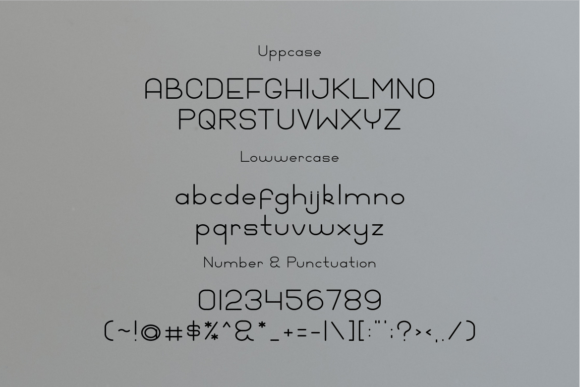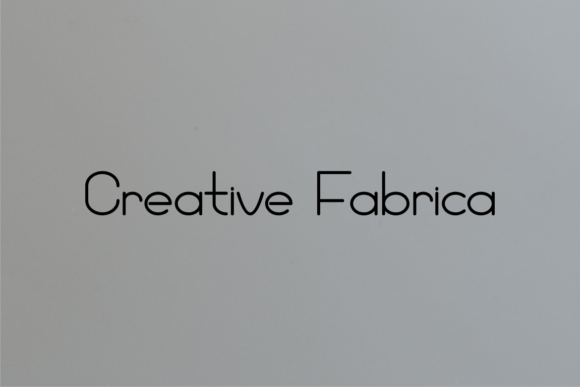
Discover the Cool and Unique Alleplongo Font: Elevate Your Design Projects
Are you tired of using the same old fonts in your design projects? Look no further! Introducing Alleplongo, a cool and unique sans serif font that’s sure to take your designs to the next level. With its modern and sleek aesthetic, Alleplongo is the perfect addition to any project, and we’re excited to share its features and benefits with you.
What Makes Alleplongo Special?
Alleplongo is a sans serif font, which means it doesn’t have the small lines or flourishes at the ends of the letters. This gives it a clean and minimalist look that’s perfect for designs that require a modern and sophisticated feel. The font is also highly legible, making it suitable for use in a variety of applications, from digital screens to print materials.
Key Features of Alleplongo Font
- Unique and Cool Design: Alleplongo has a distinctive and stylish design that’s sure to grab attention. Its unique letterforms and proportions make it stand out from other sans serif fonts.
- Highly Legible: The font is designed to be easy to read, even at small sizes. This makes it perfect for use in body text, captions, and other applications where readability is key.
- Versatile: Alleplongo is a versatile font that can be used in a wide range of design projects, from branding and advertising to packaging and web design.
- Easily Customizable: The font is also highly customizable, allowing you to adjust its size, color, and style to suit your design needs.
How to Use Alleplongo in Your Design Projects
Adding Alleplongo to your design projects is easy. Here are a few ways you can use this amazing font:
- Branding and Logo Design: Use Alleplongo to create a unique and memorable brand identity. Its modern and sleek design makes it perfect for logos, business cards, and other branding materials.
- Digital Design: Alleplongo is a great choice for digital designs, including website headers, social media graphics, and email marketing campaigns.
- Print Design: The font is also suitable for print designs, such as brochures, flyers, and posters.
Tips for Getting the Most Out of Alleplongo
Here are a few tips for getting the most out of Alleplongo:
- Experiment with Different Sizes and Colors: Don’t be afraid to try out different sizes and colors of Alleplongo to find the perfect combination for your design.
- Pair it with Other Fonts: Alleplongo can be paired with other fonts to create a unique and interesting design. Try pairing it with a serif font for a contrasting look.
- Use it Consistently: To create a cohesive design, use Alleplongo consistently throughout your project.
Alleplongo is a cool and unique sans serif font that’s perfect for designers and crafters looking to elevate their design projects. With its modern and sleek aesthetic, high legibility, and versatility, Alleplongo is sure to become a favorite in your design toolkit. So why wait? Add Alleplongo to your projects confidently and see the amazing results for yourself!
Alleplongo Font – Key Benefits at a Glance
| Benefit | Description |
| Unique Design | Distinctive and stylish design that’s sure to grab attention |
| High Legibility | Easily readable, even at small sizes |
| Versatility | Suitable for a wide range of design projects |
| Customizability | Easily adjustable size, color, and style |